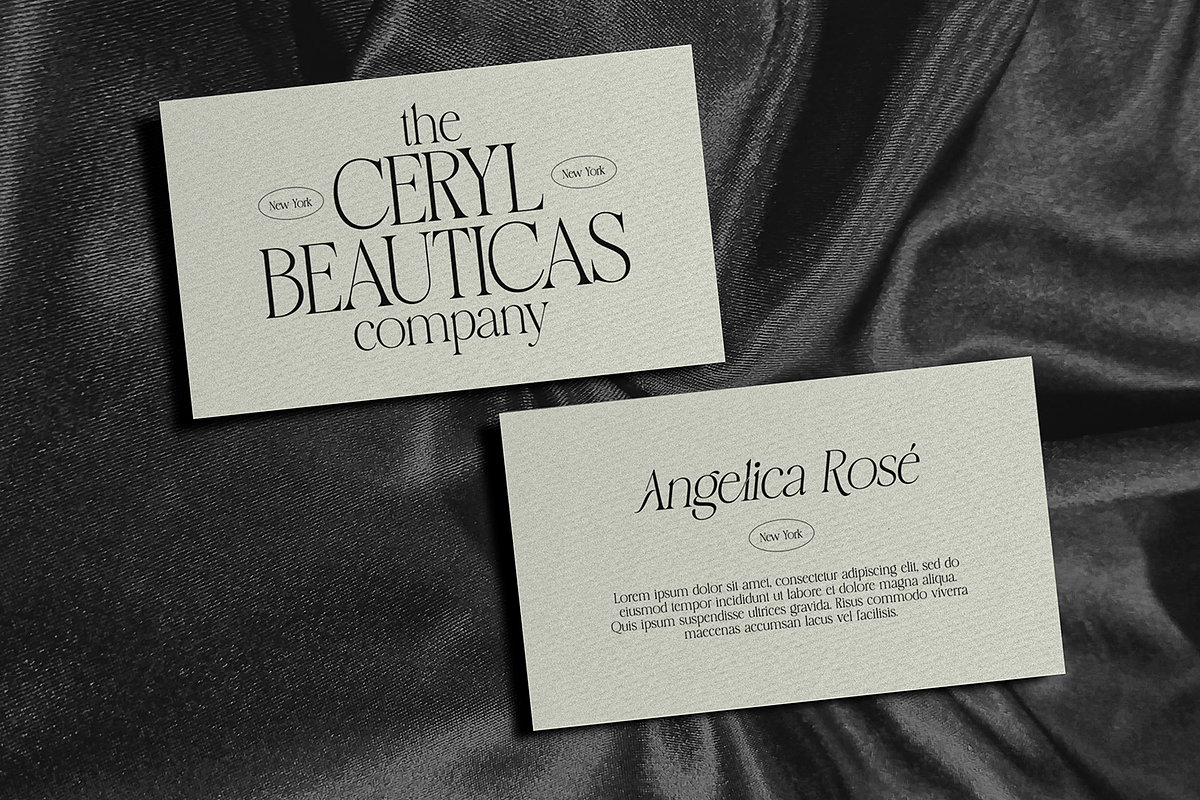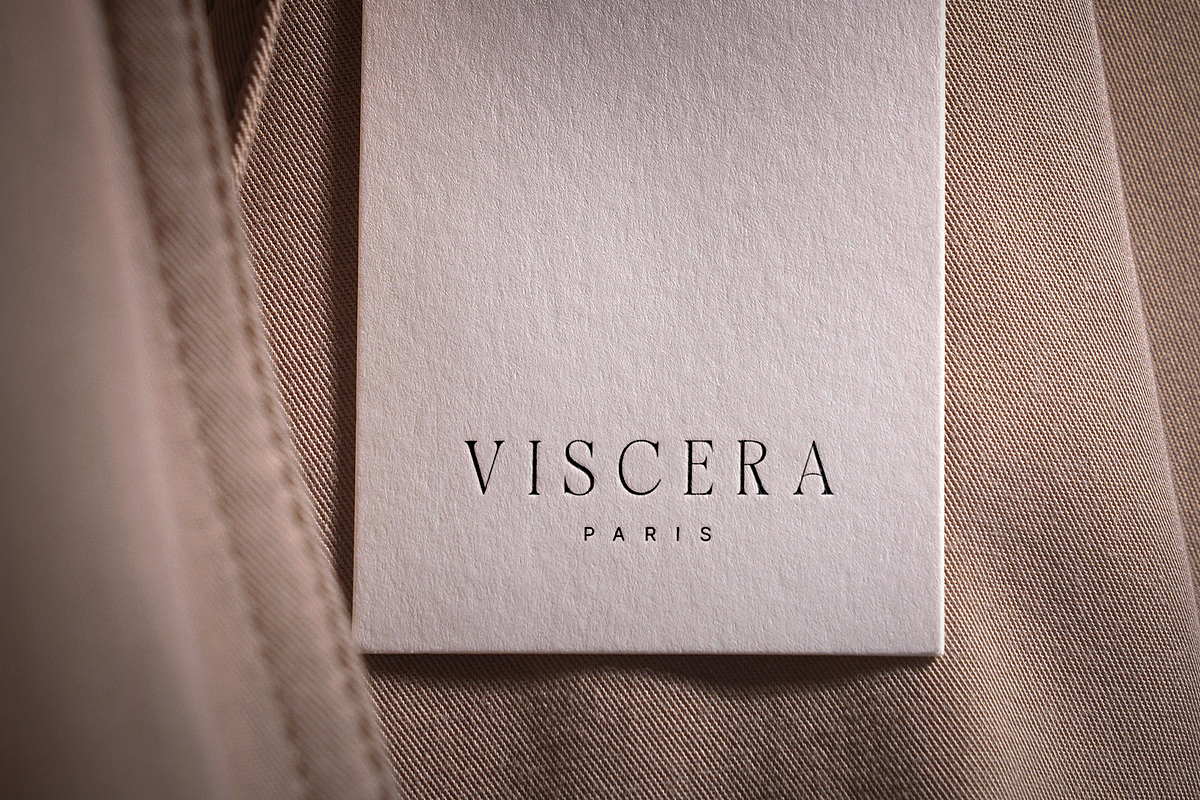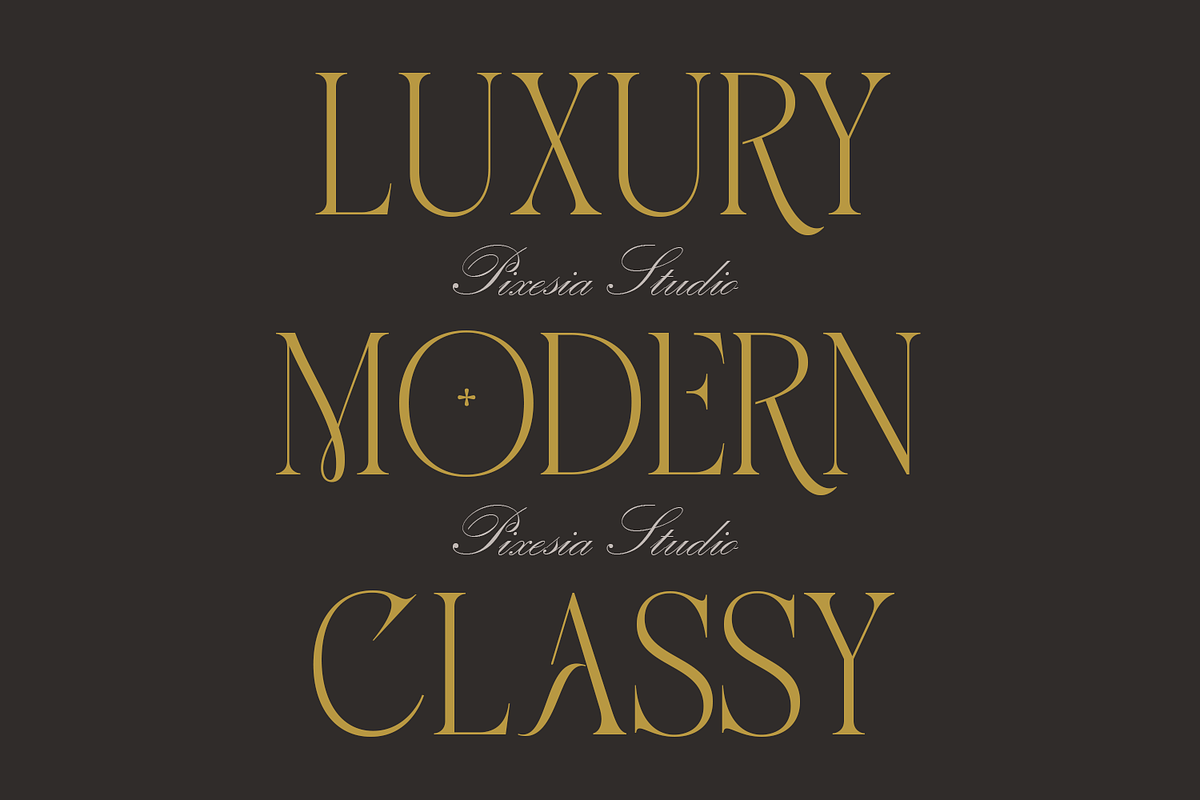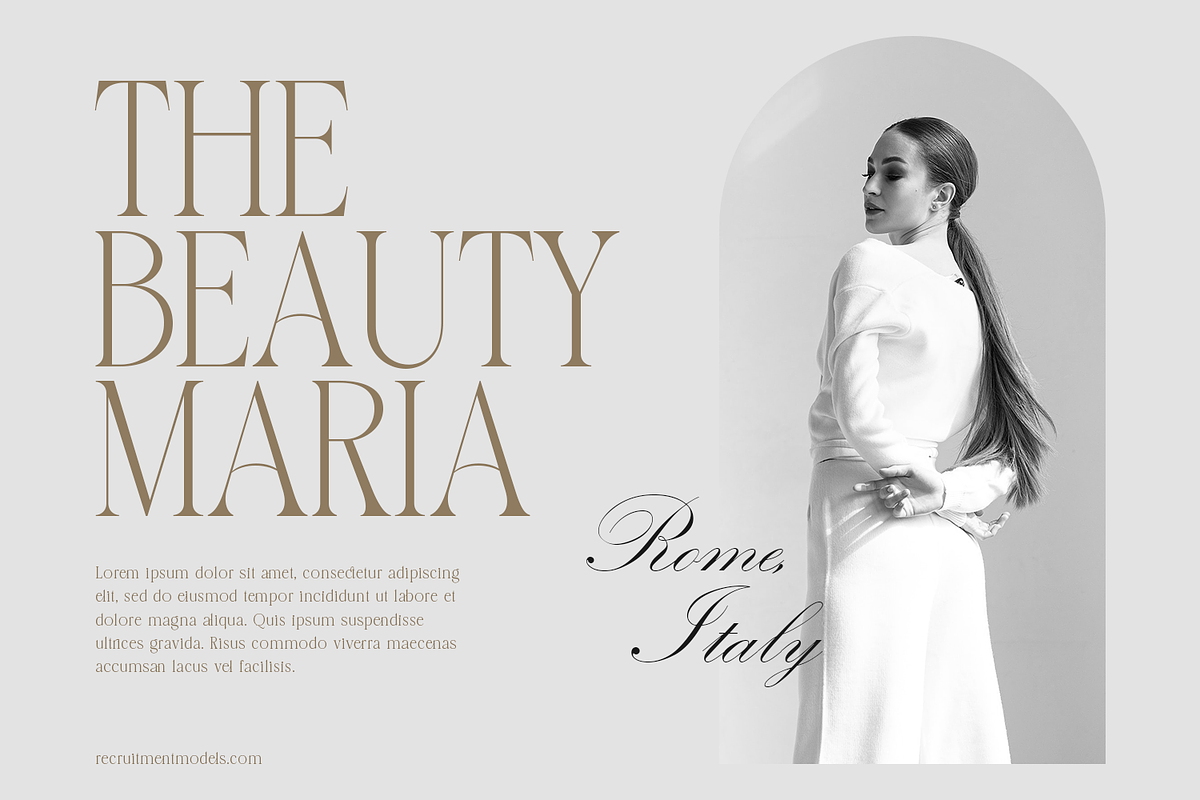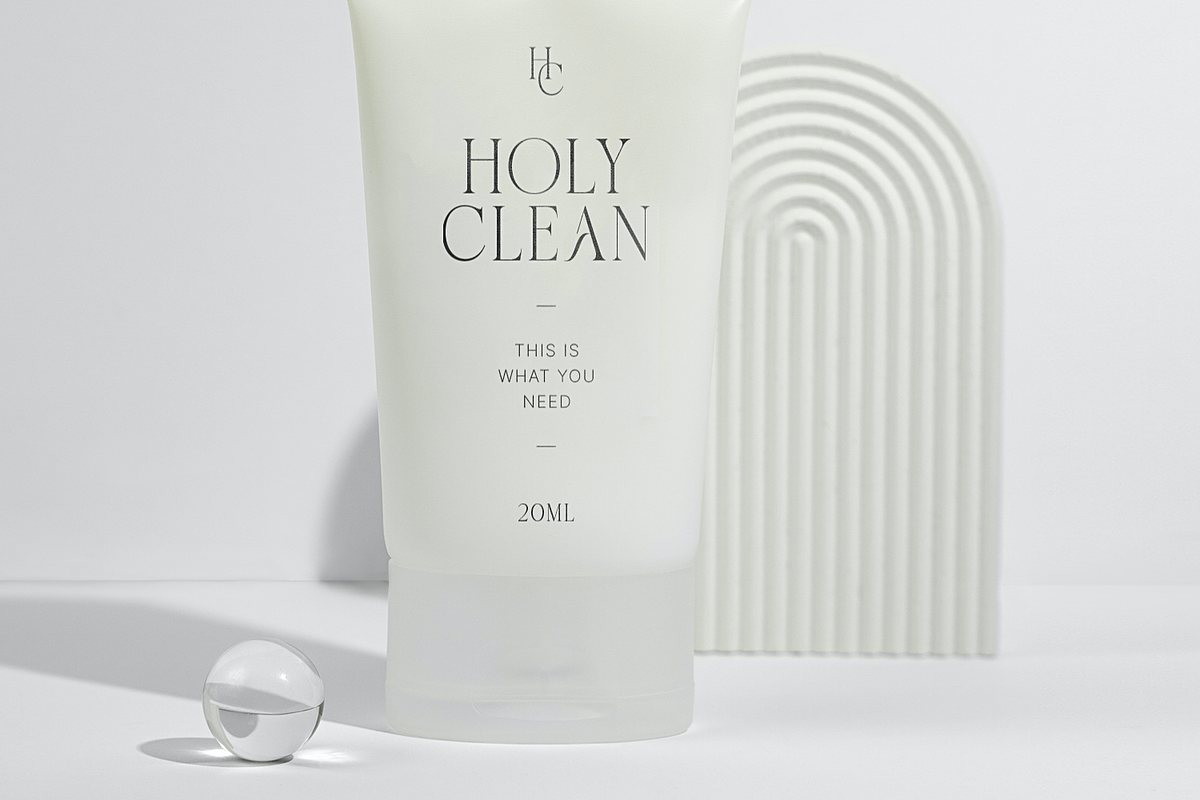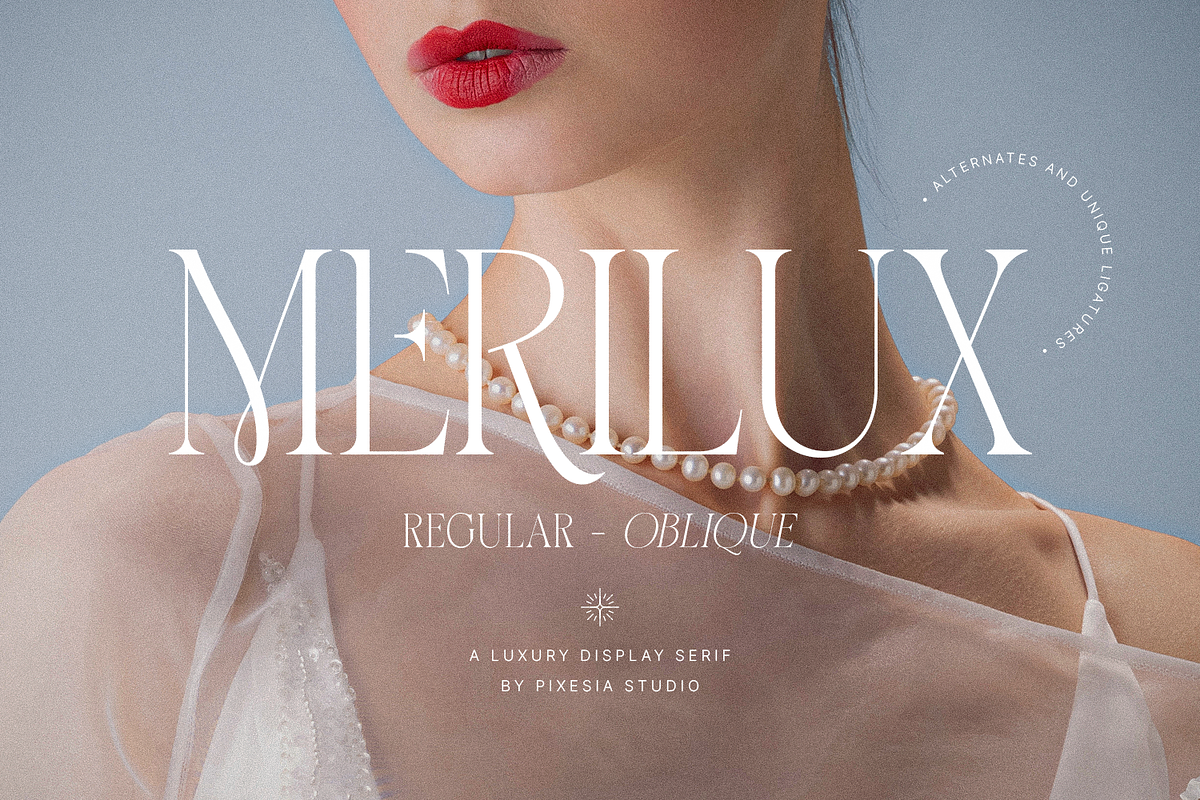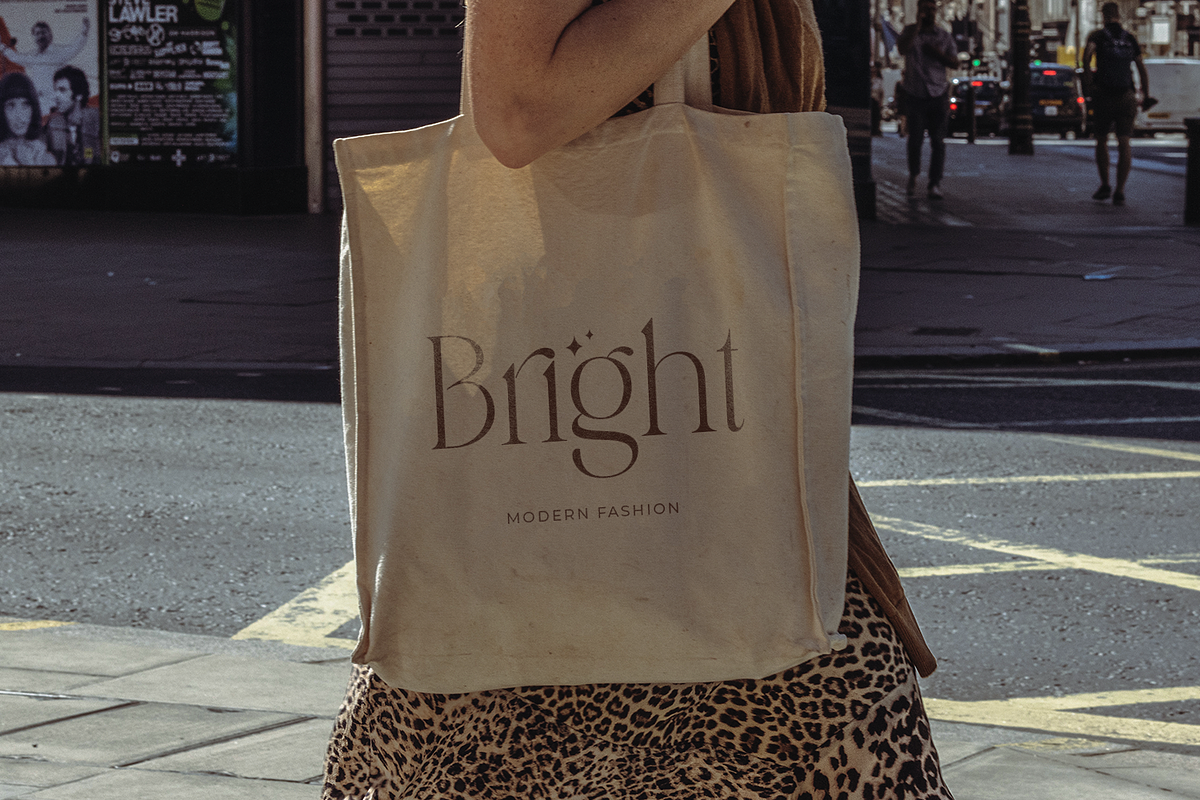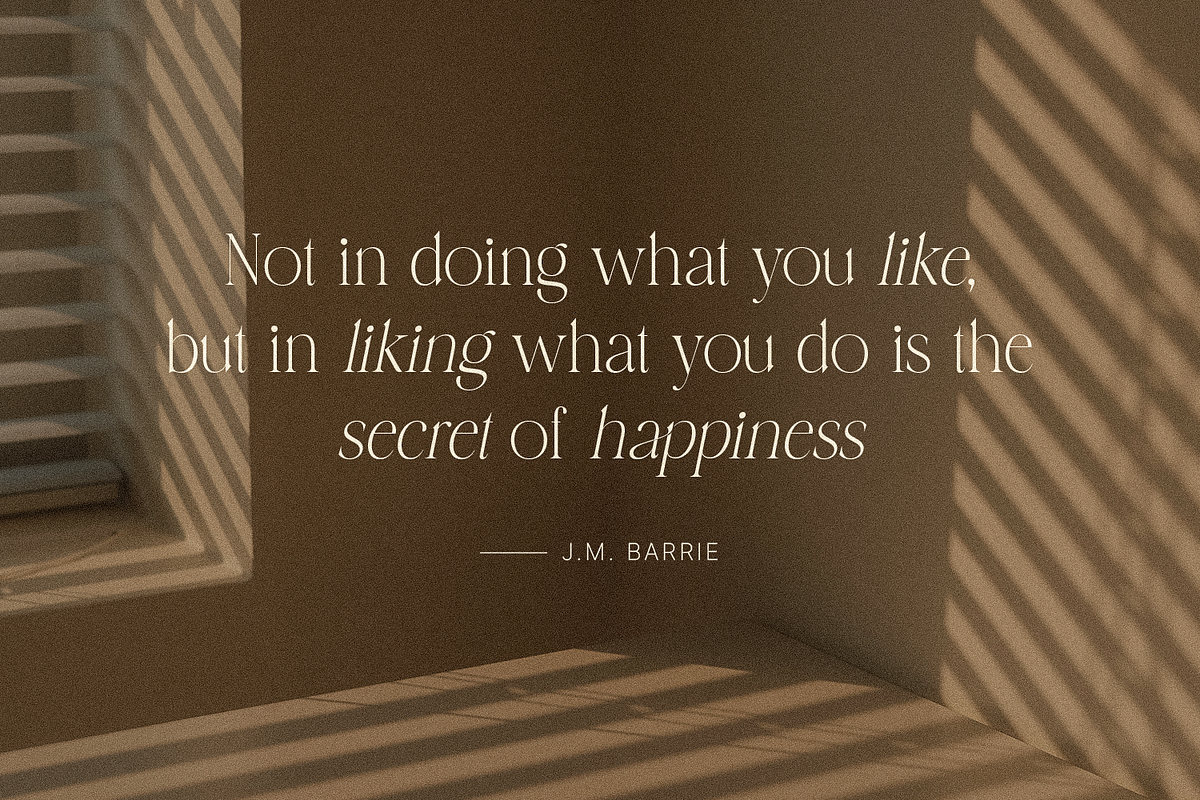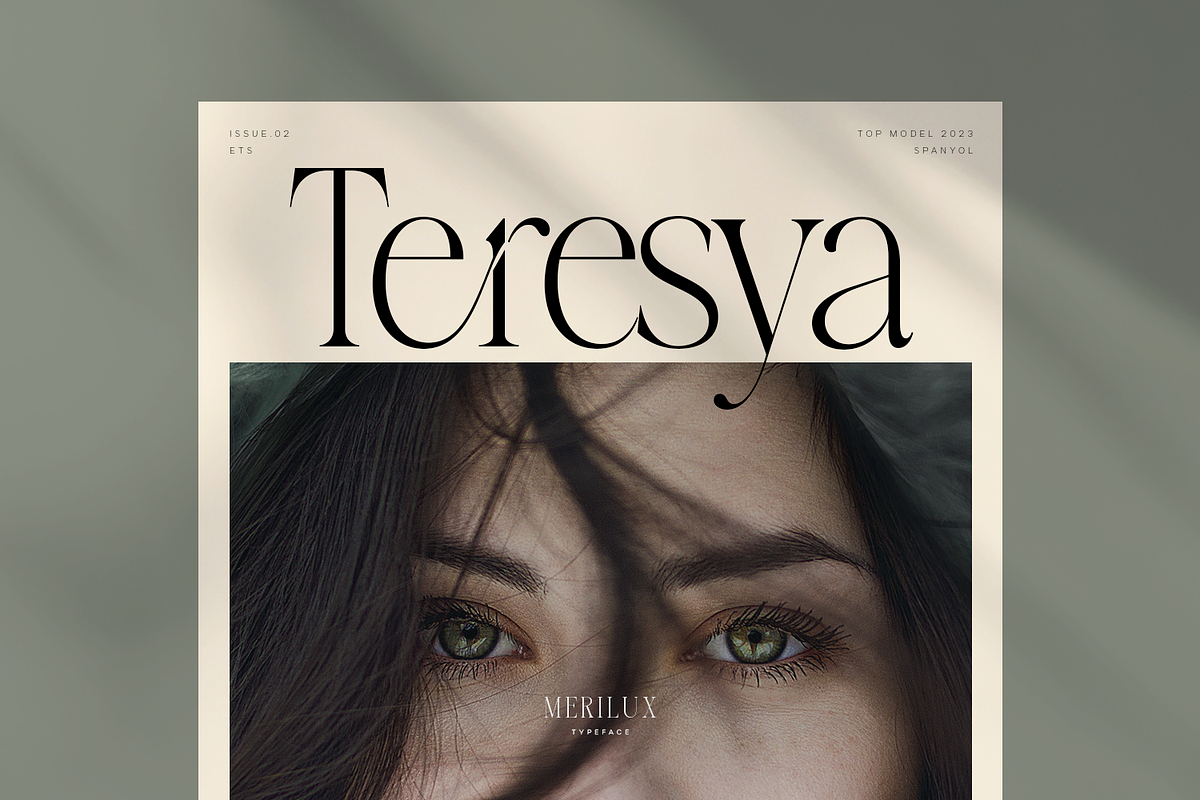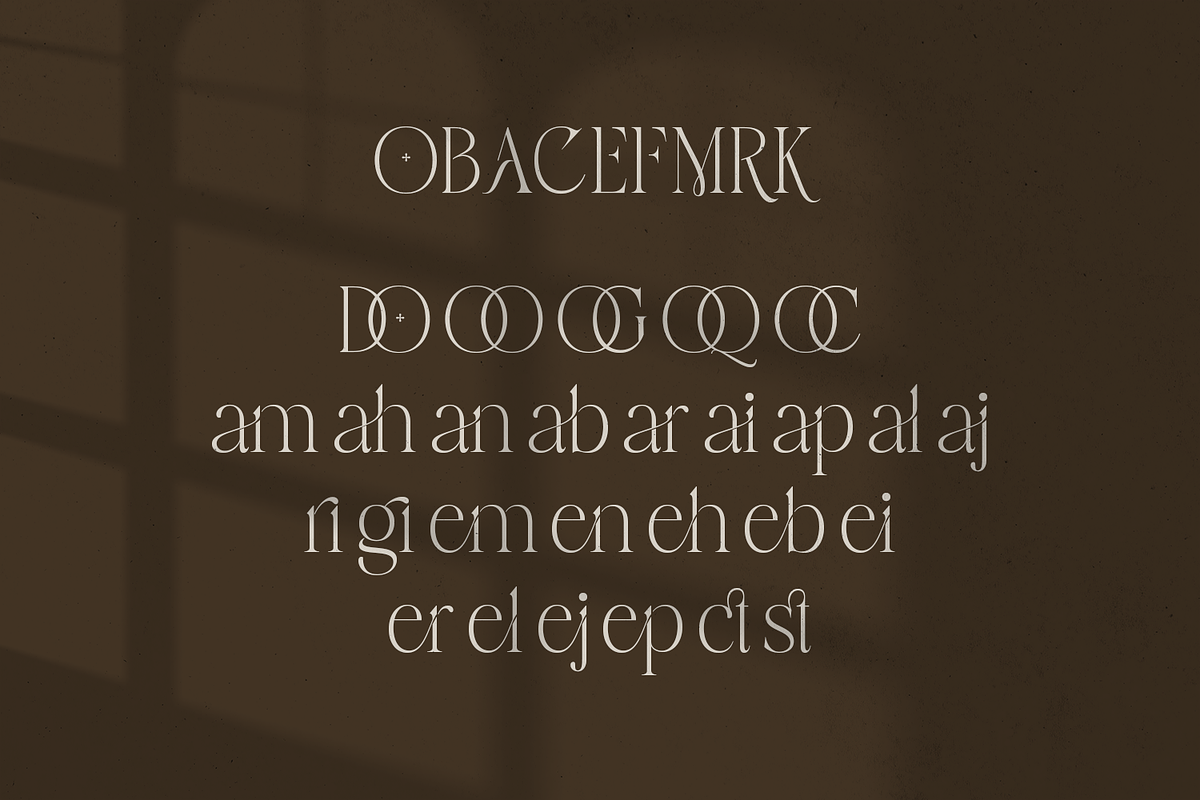
Merilux - Modern Luxury Serif
Introducing Merilux - Modern Luxury Serif
Merilux is a sleek and modern serif font that offers a touch of luxury to any design. With its sleek lines and elegant curves, Merilux is perfect for creating sophisticated and stylish designs for branding, logos, heading, magazines, product packaging, invitation, monograms, merchandise, poster book title, movie title or pull quote, social media, headers, editorial content, and more.